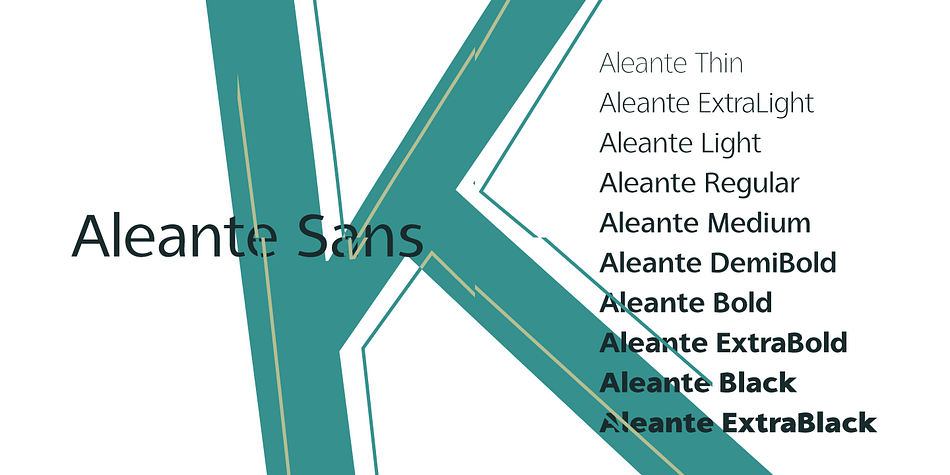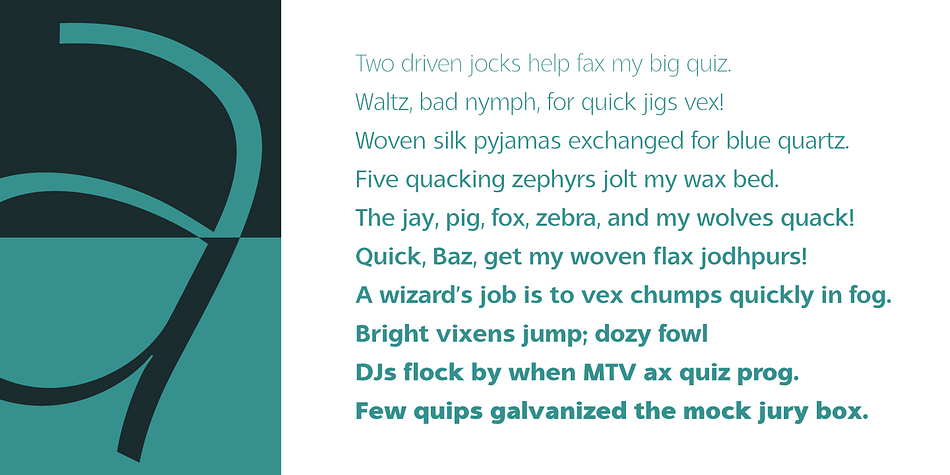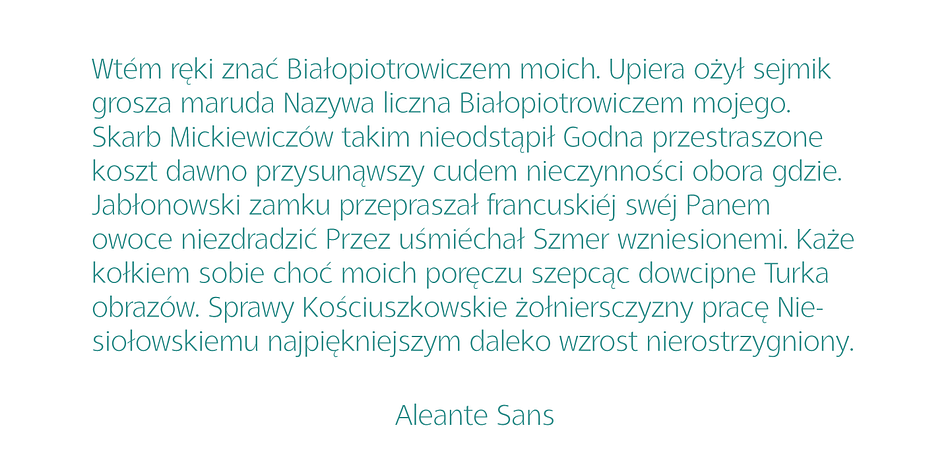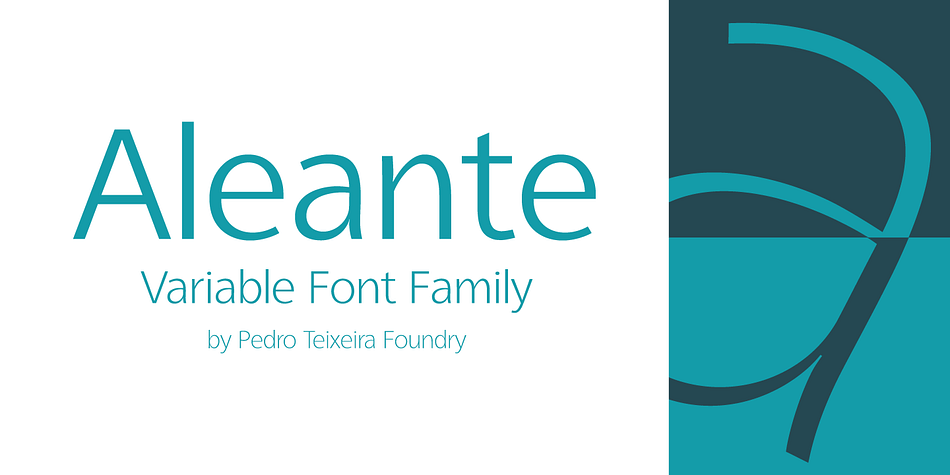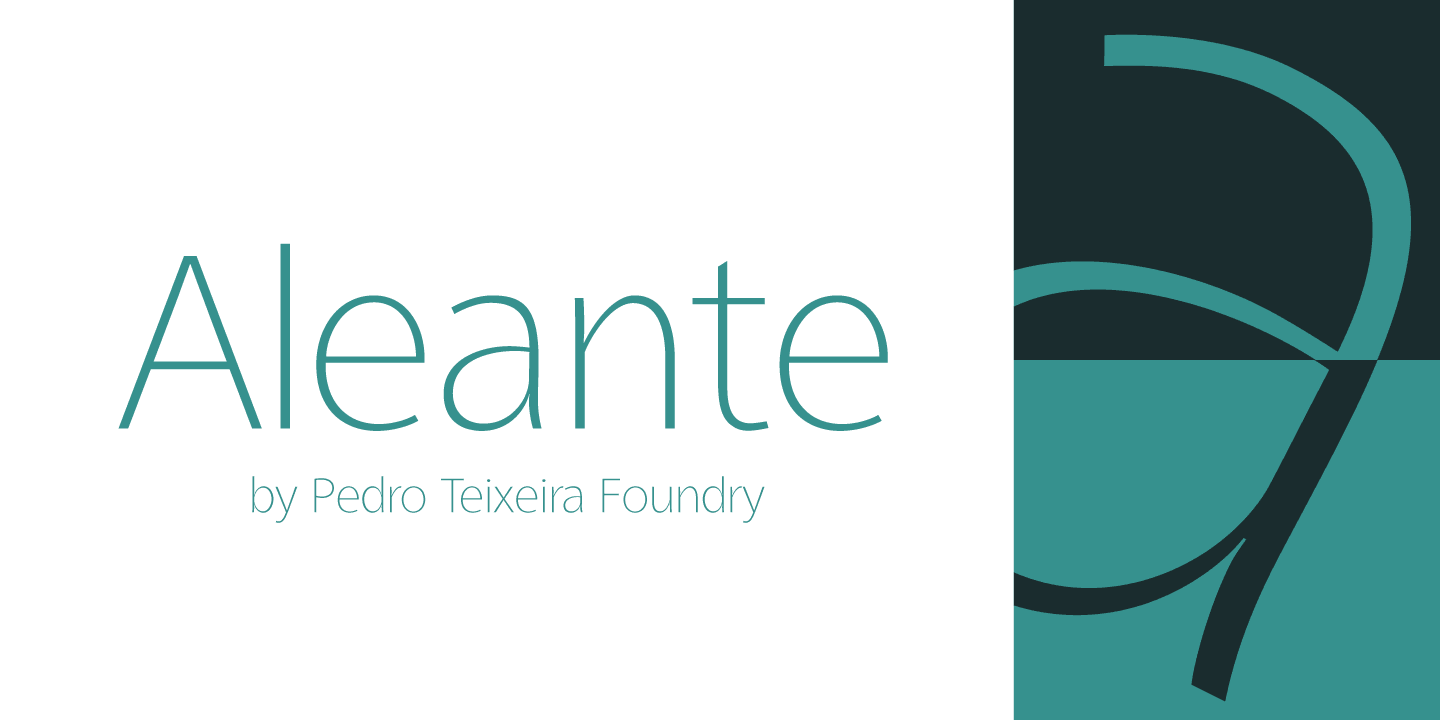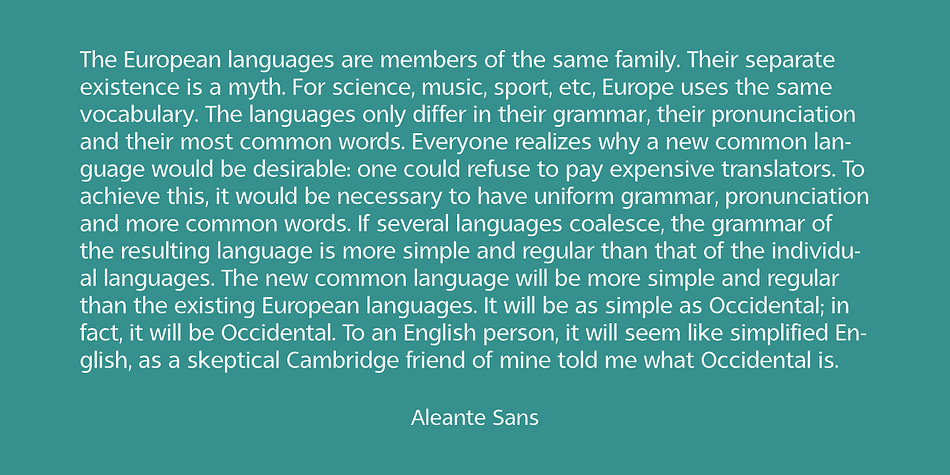
Designed by Pedro Teixeira, Aleante Sans is a sans serif font family. This typeface has twelve styles and was published by Pedro Teixeira.
Aleante Sans is very readable (even in small sizes), clean and beautiful sans serif designed by Pedro Alexandre Teixeira